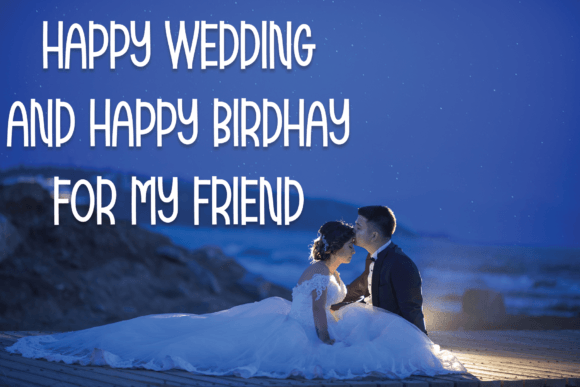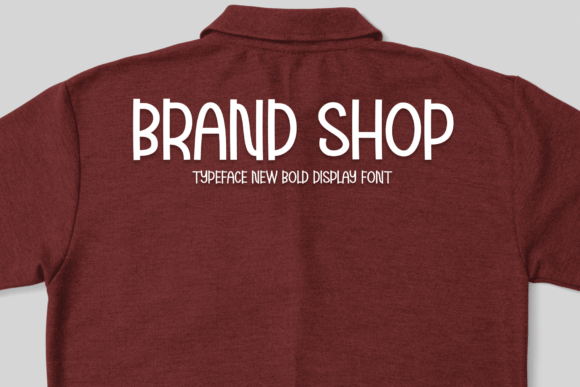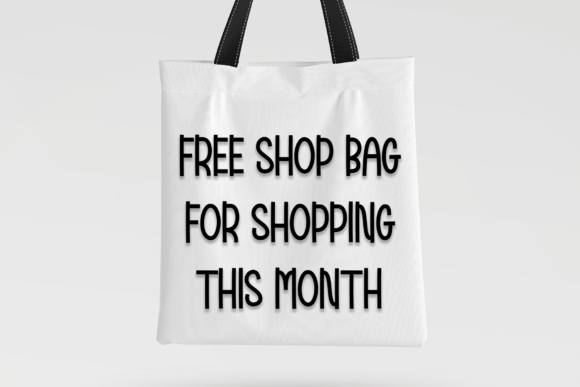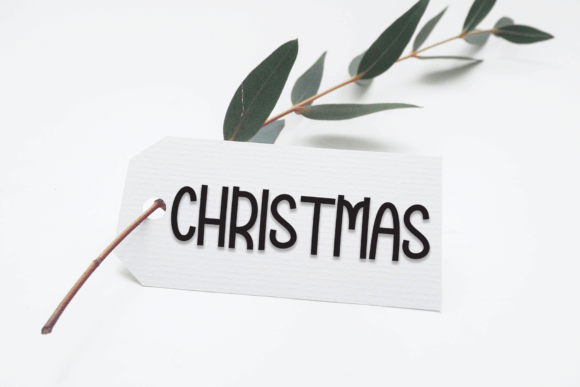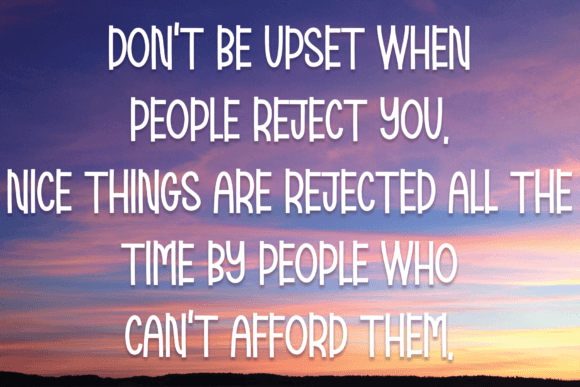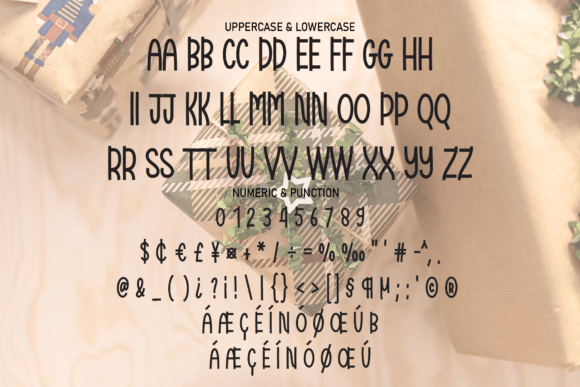
Introduction to Christmas Greeting Font
As the festive season approaches, creatives around the world are looking for the perfect design elements to make their projects shine. For many, this means searching for the ideal font to capture the magic of Christmas. Whether you’re crafting a holiday card, designing a festive logo, or creating a social media post that screams ’tis the season, the right font can make all the difference.
Enter Christmas Greeting Font, the latest style letters that are sure to add a touch of modern sophistication to any project. With its versatility and high-quality design, this font is a must-have for designers looking to elevate their creative work.
Key Features of Christmas Greeting Font
- Unique, festive design elements perfect for holiday-themed projects
Honest Review: Christmas Greeting Font
I recently came across the Christmas Greeting Font, a free download that I thought would be perfect for my holiday design project. The font is available in various styles and weights, which makes it super versatile for different creative projects.
Here are some things that I think work well with this font:
- High quality design: The font is well-designed and has a clear, crisp appearance.
However, there are some limitations to keep in mind:
- ⚠️ Limited character set: The font only includes a limited set of characters, which might be a problem if you need to use it for complex text.
- ⚠️ Not suitable for large text: While it looks great in small sizes, the font can become blurry when enlarged.
Overall, I think the Christmas Greeting Font is a great addition to any design resource library. While it has some limitations, its high quality and versatility make it a great choice for holiday-themed creative projects. ✨
Use a high-quality image with a transparent background to create a visually appealing design. Experiment with different font sizes and styles to create a unique and creative project. You can also use the Christmas Greeting Font in combination with other design elements, such as images and graphics, to create a cohesive and festive design.
The Christmas Greeting Font is perfect for creating Christmas cards, invitations, and gift tags. You can also use it to create social media posts, email newsletters, and website banners. With its high-quality design and transparent background, the Christmas Greeting Font is a great resource for any creative project.